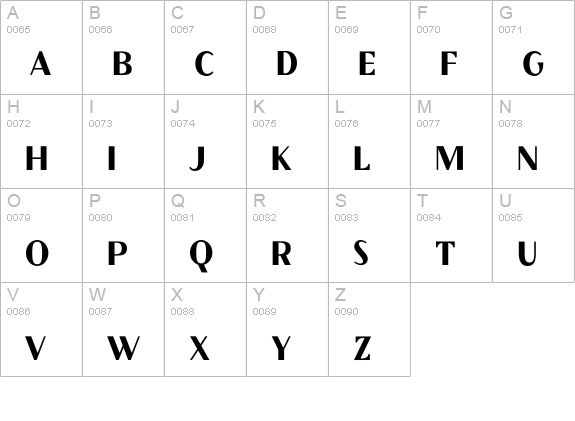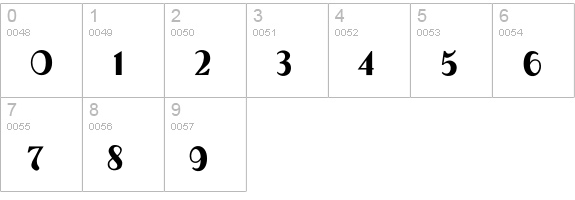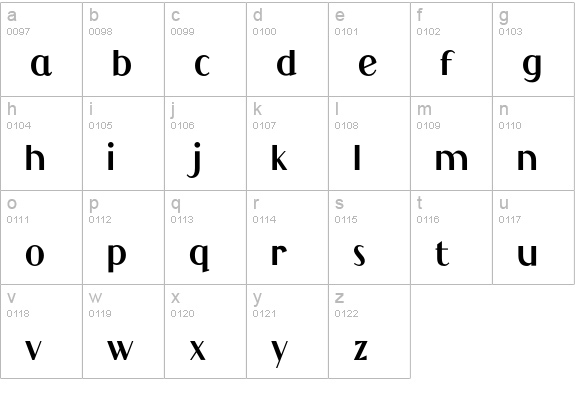
Camion font is a stylish and modern typeface that exudes elegance and sophistication. With its clean lines and contemporary design, Camion is perfect for a wide range of creative projects, from branding to editorial design. This versatile font offers a balance of professionalism and personality, making it suitable for both corporate and personal use. What makes Camion font even more appealing is that it is available for free download at FontsMarket.com. This means you can easily access this high-quality font without any cost, making it a valuable addition to your font library. Don't miss out on the opportunity to elevate your designs with the sleek and timeless appeal of Camion font.